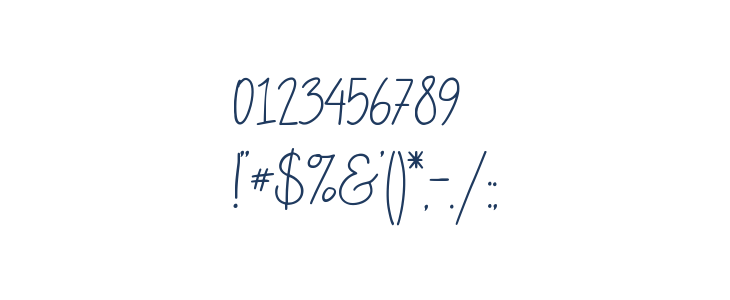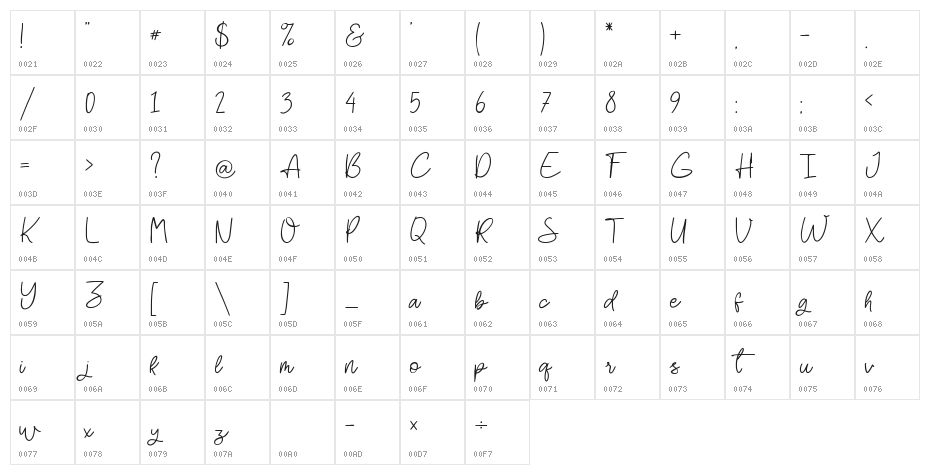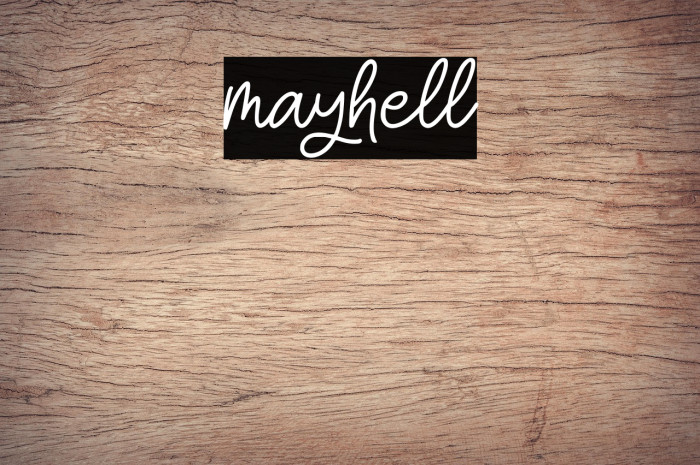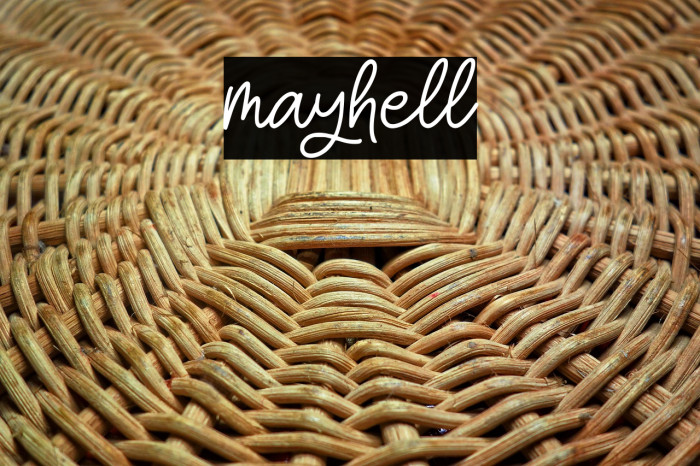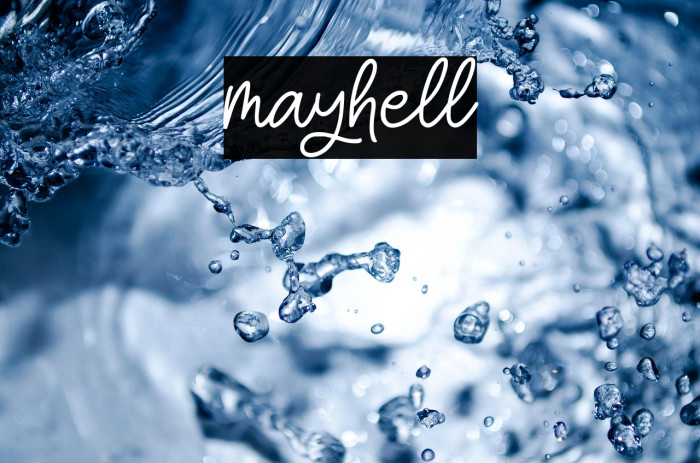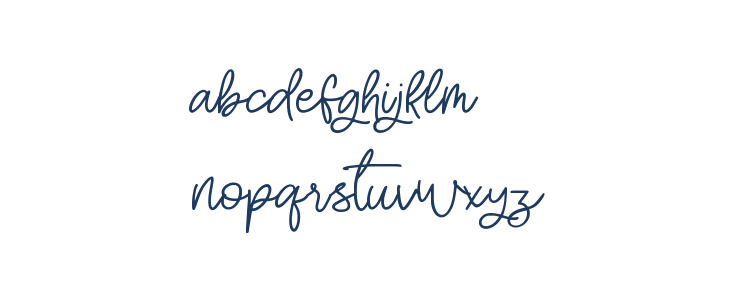
mayhell Font
mayhell Description
This font features a playful and casual handwritten style, characterized by its fluid and dynamic strokes. The uppercase letters are tall and slightly narrow, with a whimsical flair that adds personality to each character. The lowercase letters maintain a consistent flow, with some letters extending below the baseline, enhancing the font's informal and approachable nature. The numerals are well-integrated, matching the overall style with their rounded and slightly tilted appearance. Special characters are creatively designed, maintaining the font's cohesive and lively aesthetic.
Overall StyleCasual
Use CaseLogos, Headlines, Social media graphics
Proposed ProjectsIdeal for greeting cards, invitations, personal branding, and social media graphics.